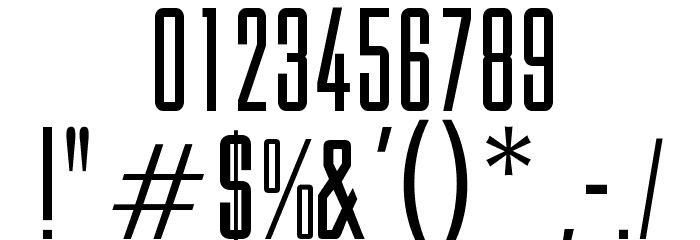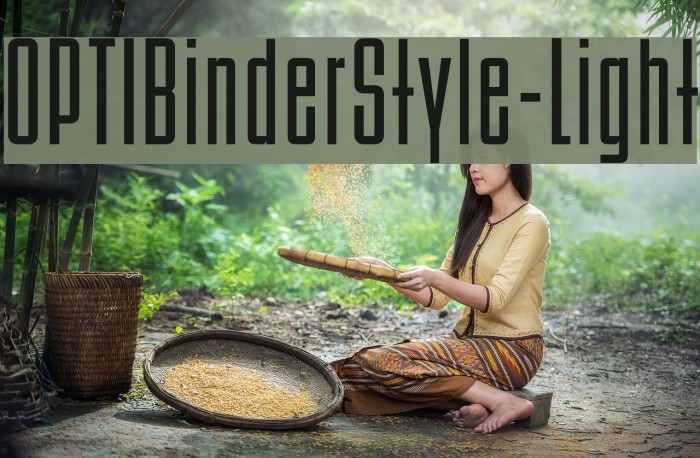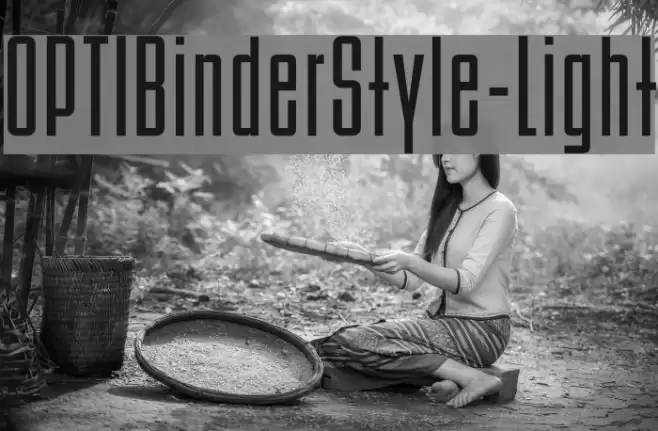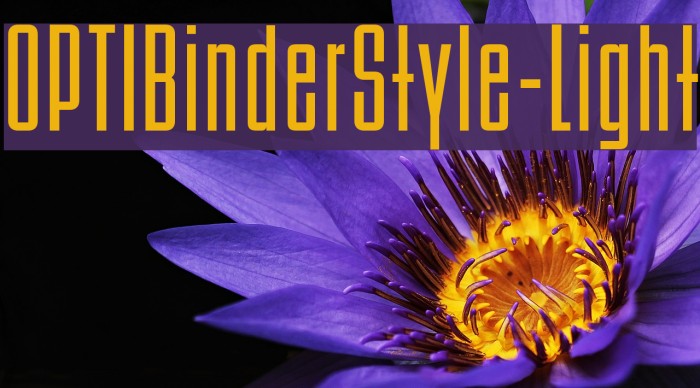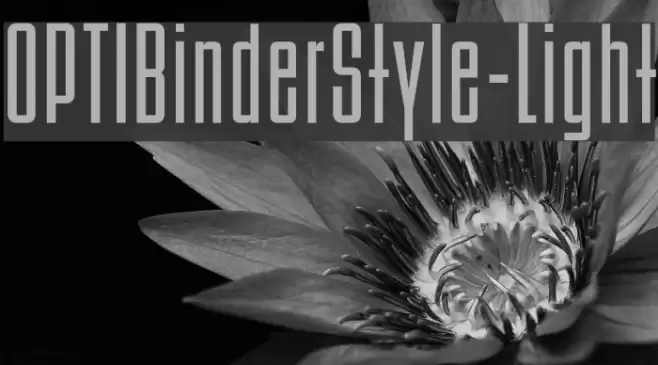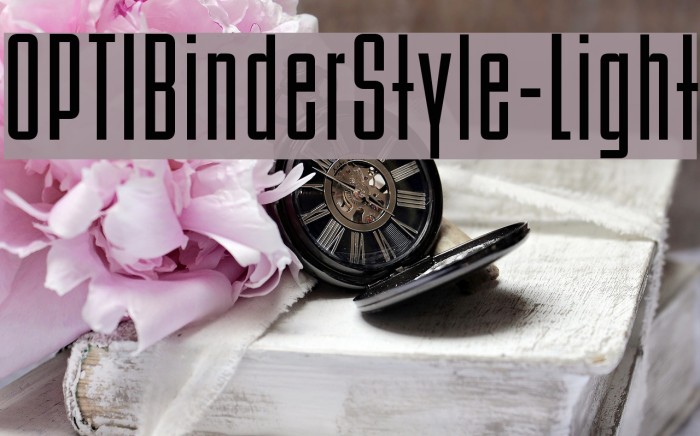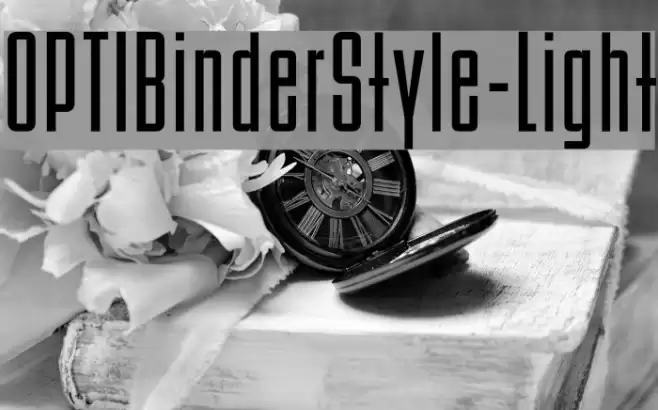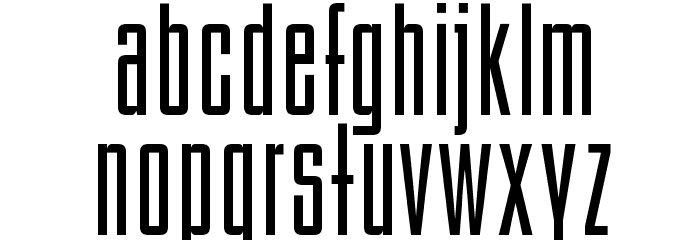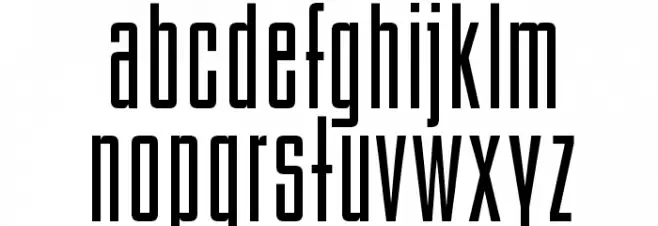
OPTIBinderStyle-Light Font
OPTIBinderStyle-Light Description
This font features a tall, narrow design with clean lines and a modern aesthetic. The characters are uniformly structured, giving it a sleek and professional appearance. The uppercase letters are particularly elongated, creating a striking visual impact. The lowercase letters maintain a consistent height, complementing the uppercase set. Numbers and special characters are designed with the same attention to detail, ensuring readability and style. The overall look is contemporary, making it suitable for various design applications where a modern and sophisticated touch is desired.
| Proposed Projects | Ideal for branding, editorial design, posters, and digital media where a modern and professional look is required. |